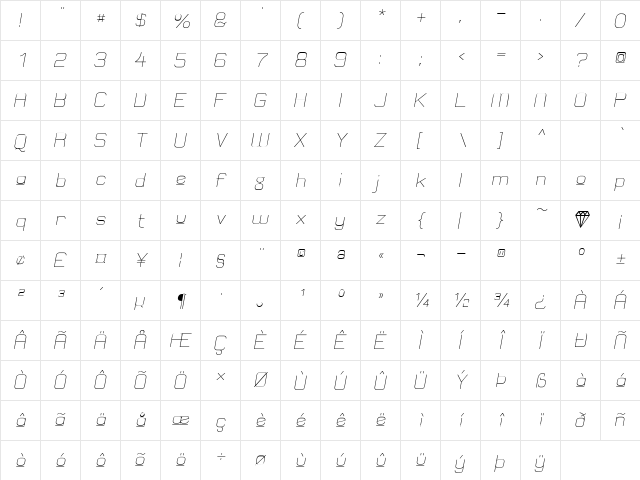
Elgethy Est Upper Regular
| Foundry | Graham Meade |
Design Context for Elgethy Est Upper Typeface
Elgethy Est Upper offers clean, dependable letterforms without strong stylistic allegiance, making it a practical choice for designers who need flexibility.